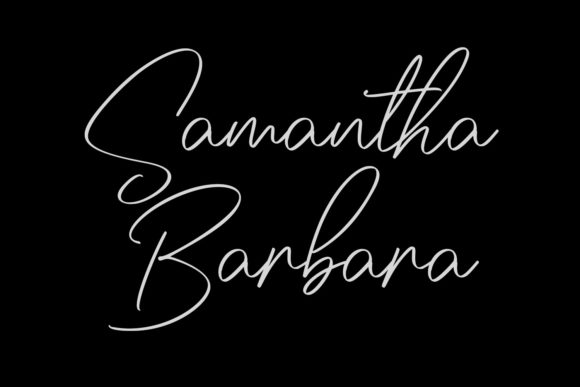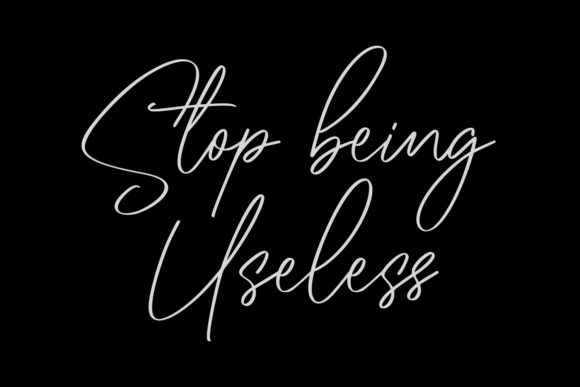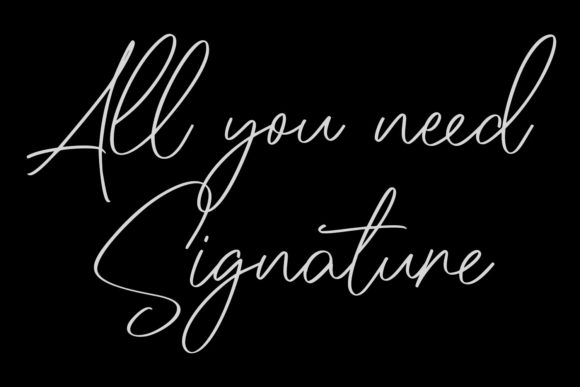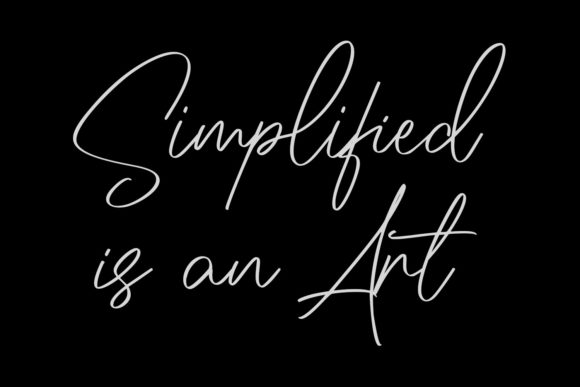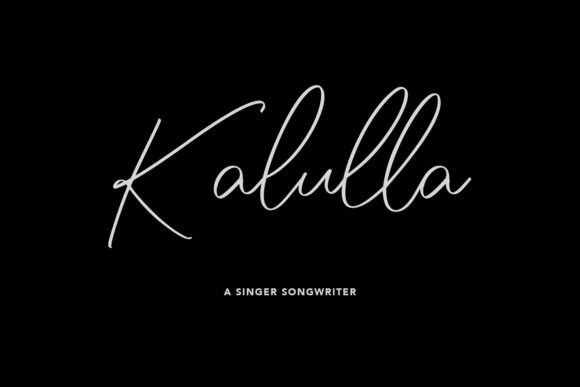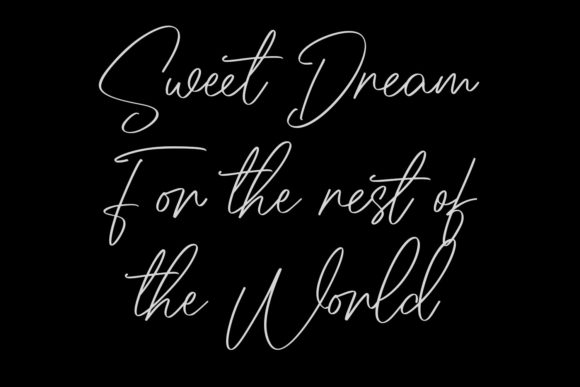
Discover the Elegance of Greylorks Font: A Thin and Delicate Script Font
Are you a designer or crafter looking for a font that can add a touch of sophistication and elegance to your creations? Look no further than Greylorks Font. This thin and delicate script font is a wonderful asset to any font library, and its highly detailed craftsmanship makes it perfect for a wide range of design projects.
What is Greylorks Font?
Greylorks Font is a beautiful, hand-crafted script font that is characterized by its thin and delicate lines. The font is designed to be highly legible, making it perfect for use in a variety of design projects, from wedding invitations and greeting cards to branding and advertising materials.
Key Features of Greylorks Font
- Thin and Delicate Lines: Greylorks Font features thin and delicate lines that give it a elegant and sophisticated feel.
- Highly Detailed Craftsmanship: The font is meticulously crafted to ensure that every letter and character is of the highest quality.
- Highly Legible: Despite its delicate lines, Greylorks Font is highly legible, making it perfect for use in a wide range of design projects.
- Versatile: Greylorks Font can be used for a wide range of design projects, from wedding invitations and greeting cards to branding and advertising materials.
Benefits of Using Greylorks Font
There are many benefits to using Greylorks Font in your design projects. Here are just a few:
- Adds Elegance and Sophistication: Greylorks Font adds a touch of elegance and sophistication to any design project.
- Enhances Readability: The font’s highly legible design makes it easy to read, even in small sizes.
- Versatile: Greylorks Font can be used for a wide range of design projects, making it a valuable addition to any font library.
- Unique: Greylorks Font is a unique and distinctive font that will help your design projects stand out from the crowd.
How to Use Greylorks Font
Greylorks Font is easy to use and can be incorporated into a wide range of design projects. Here are a few tips for using the font:
- Pair with Bold Fonts: Pair Greylorks Font with bold fonts to create a striking contrast.
- Use for Headings and Titles: Use Greylorks Font for headings and titles to add a touch of elegance and sophistication.
- Experiment with Colors: Experiment with different colors to find the perfect combination for your design project.
In conclusion, Greylorks Font is a beautiful and elegant script font that is perfect for designers and crafters looking to add a touch of sophistication to their design projects. With its thin and delicate lines, highly detailed craftsmanship, and highly legible design, Greylorks Font is a valuable addition to any font library.
Here are a few tips for designers and crafters looking to get the most out of Greylorks Font:
- Experiment with Different Sizes: Experiment with different sizes to find the perfect fit for your design project.
- Pay Attention to Kerning: Pay attention to kerning to ensure that the font looks its best.
- Use for a Variety of Projects: Use Greylorks Font for a variety of projects, from wedding invitations to branding materials.